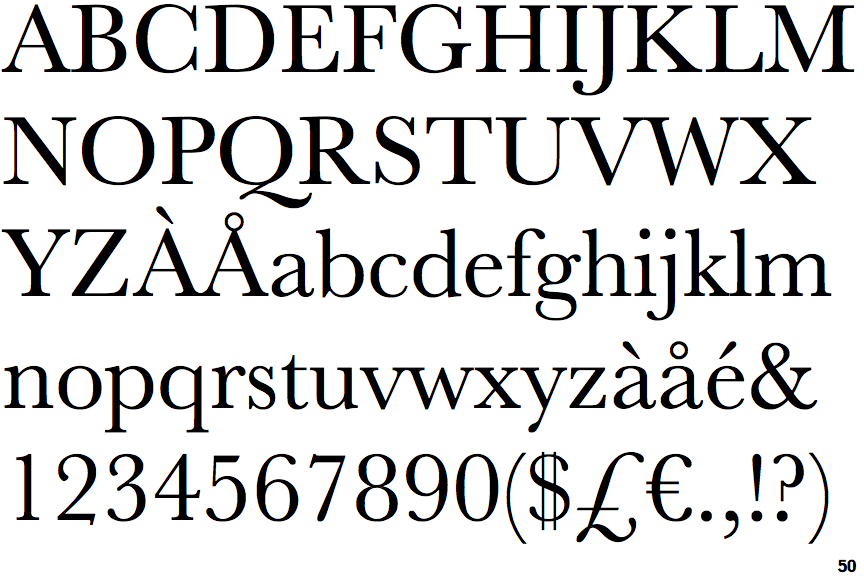
The font jacob produced was sold as a »caractères. Web libre baskerville font family made by impallari type download free for commercial use add to favorites share google web serif bracket serif corporate text baskerville large x. Web open baskerville is an open source project to create a digital revival of the famous ‘baskerville’ typefaces.
Baskerville Font Is Famous For Its Bold And Italic Function.
Baskerville Font Is An Acute Serif Typeface Reliable For A Variety Of Textual Relating Profession Nature.